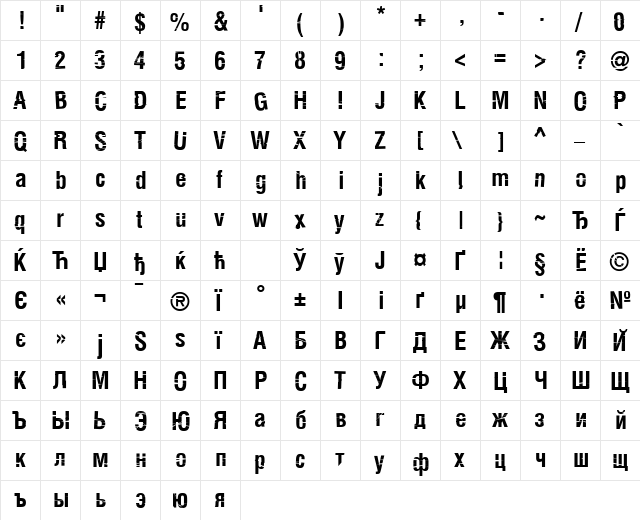
Keetano Katana Bold
| Foundry | Azamat Shamuzafarov a.k.a Keetano |
| Designer | Azamat Shamuzafarov a.k.a. Keetano |
Design Context for Keetano Katana Typeface
Keetano Katana is a composed and adaptable typeface that performs quietly and consistently across a wide range of design contexts. The heavy weight commands attention and anchors typographic hierarchies.